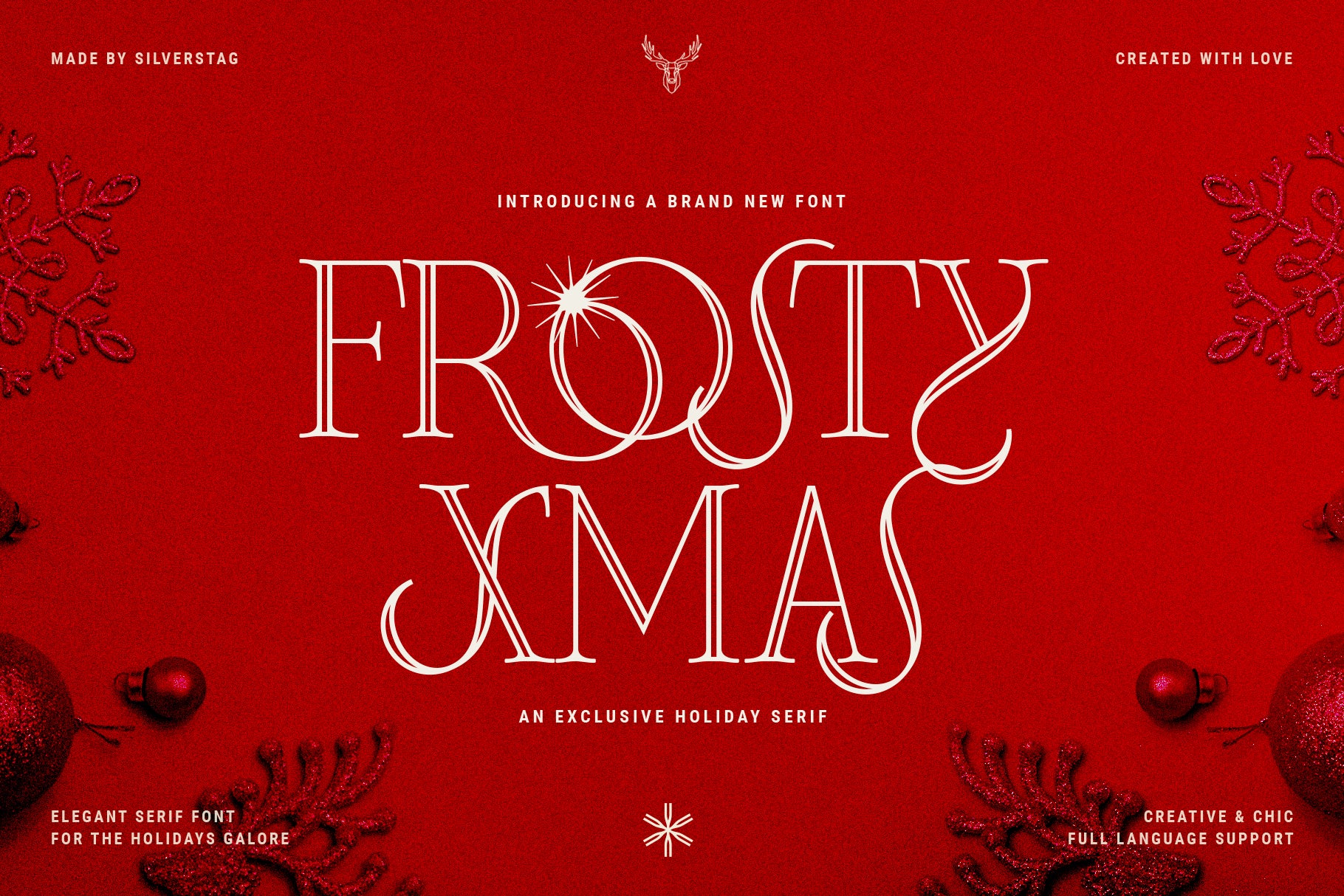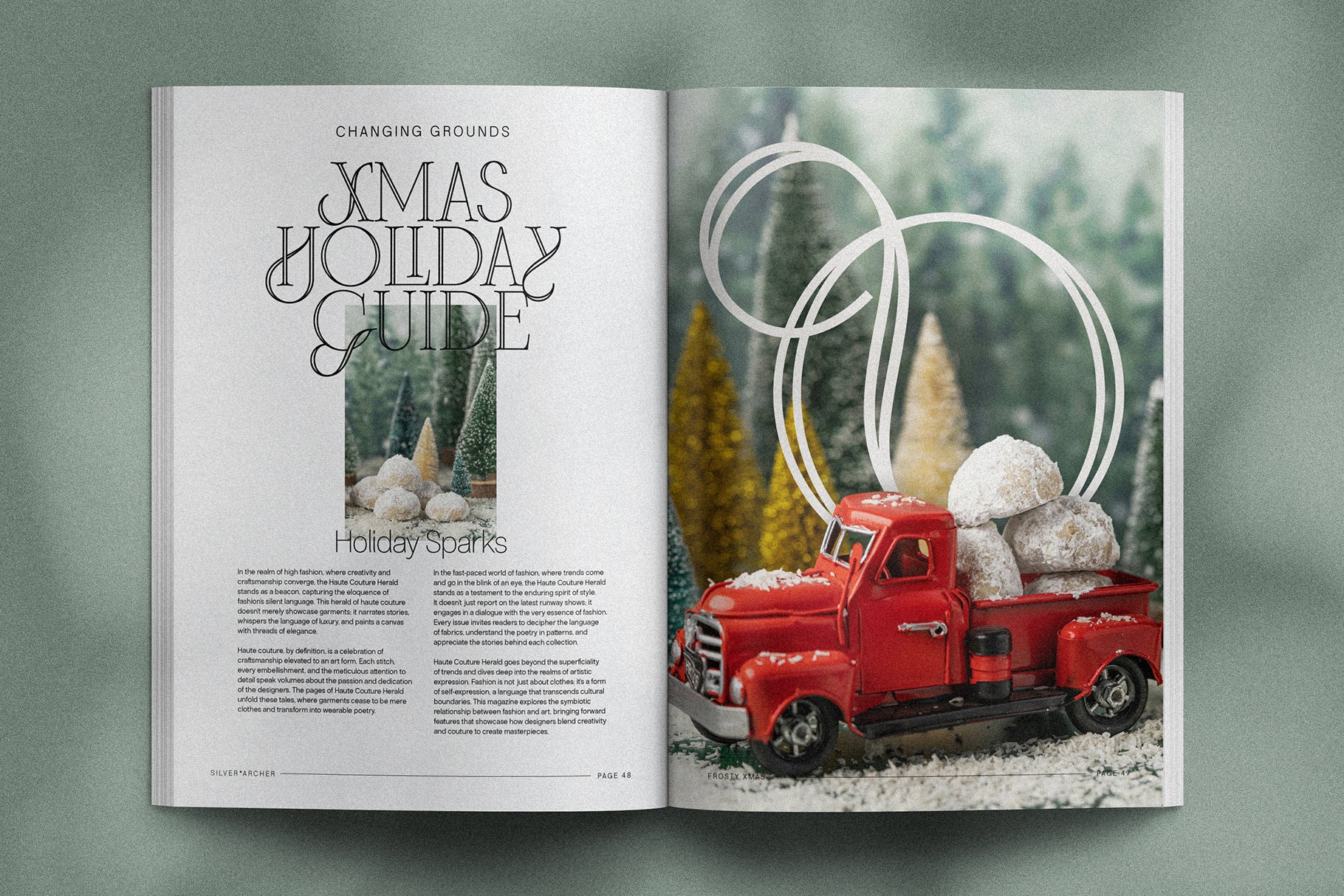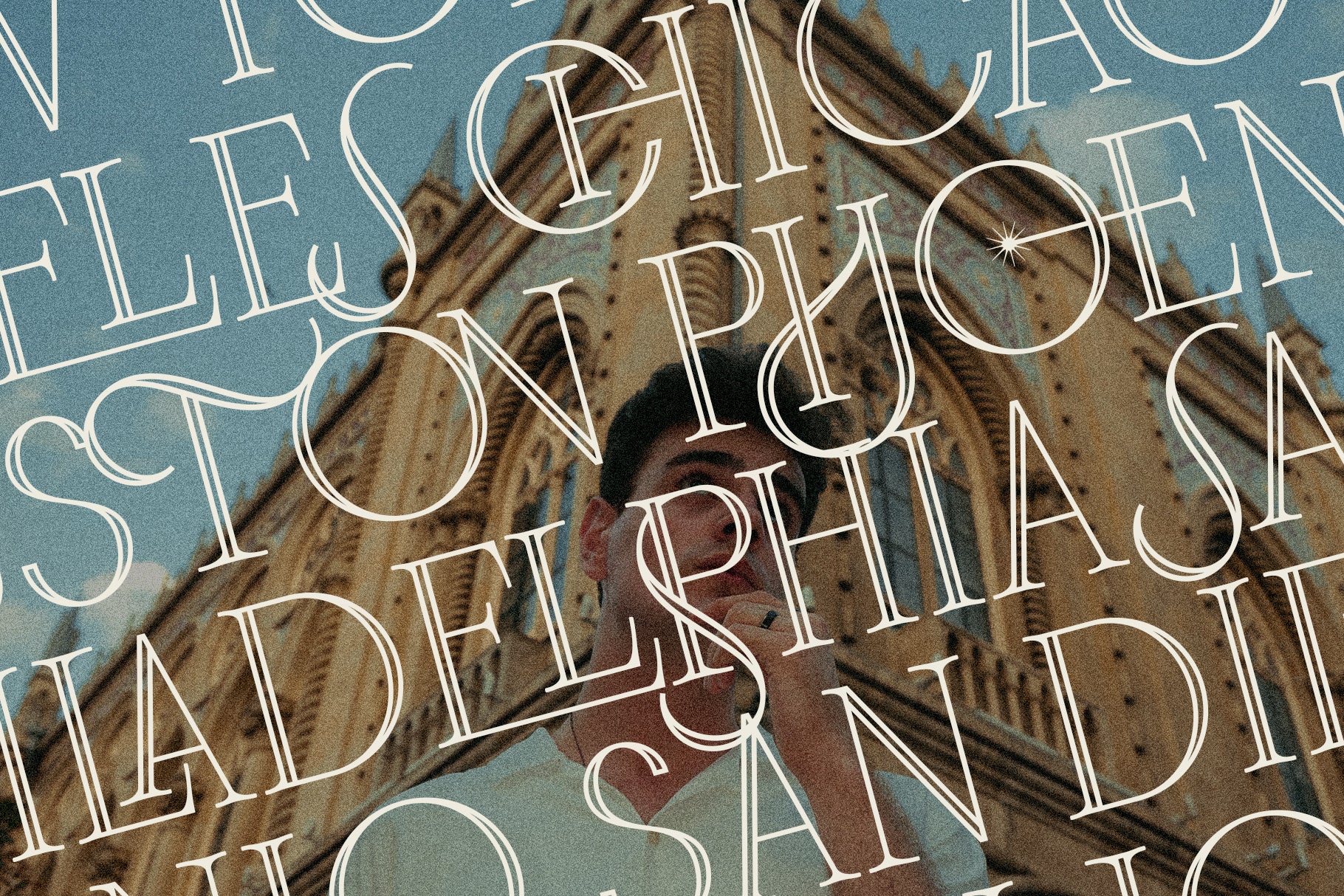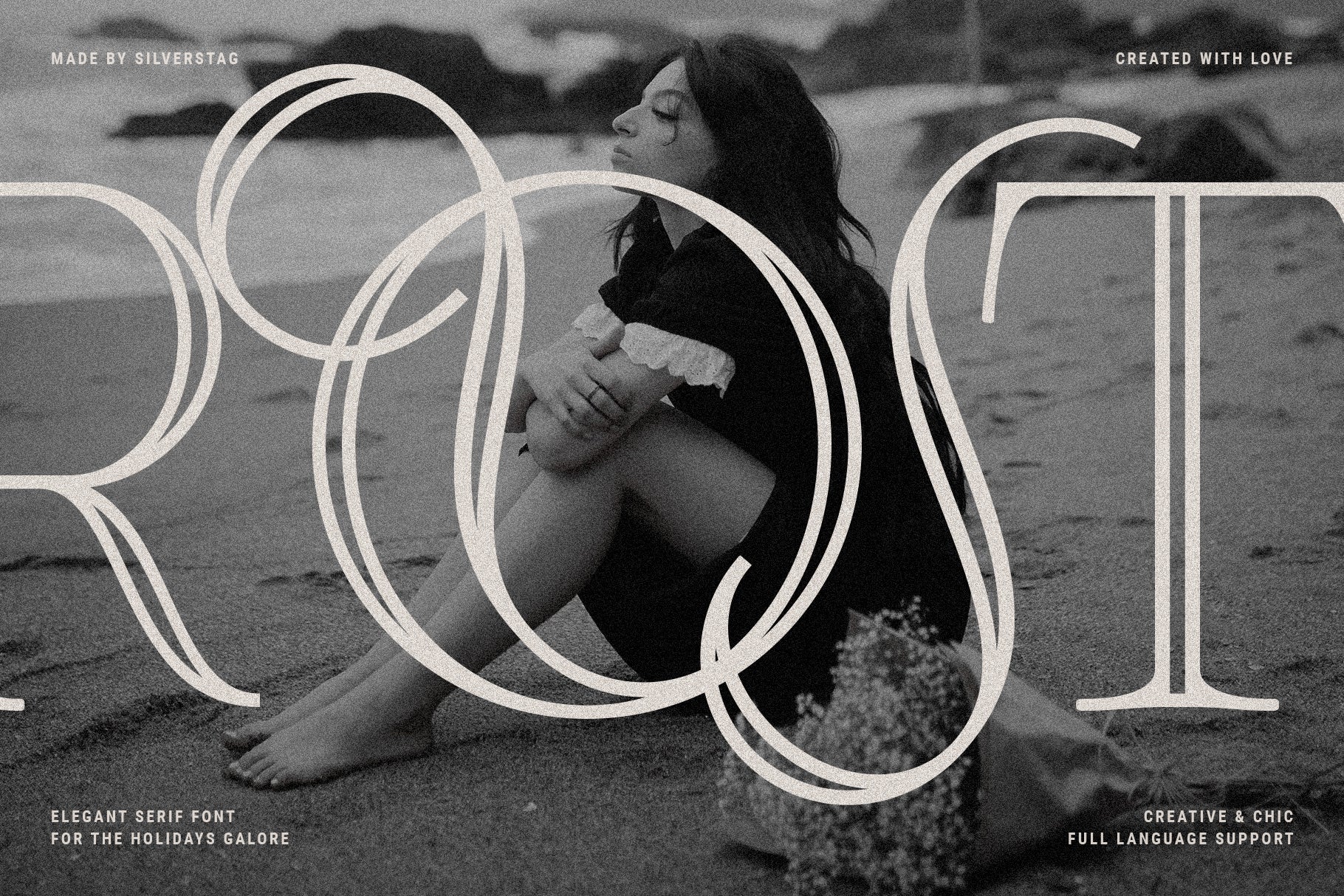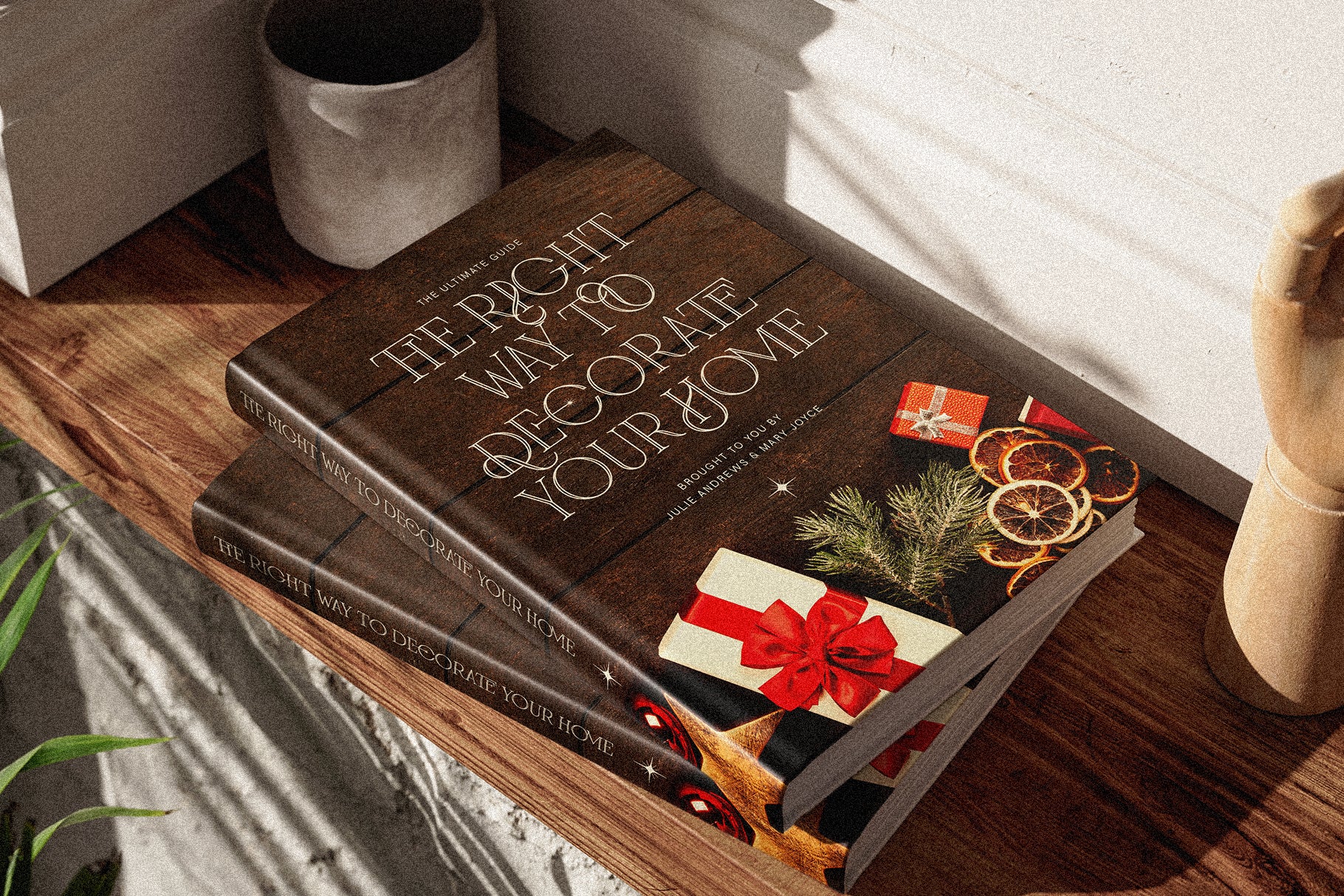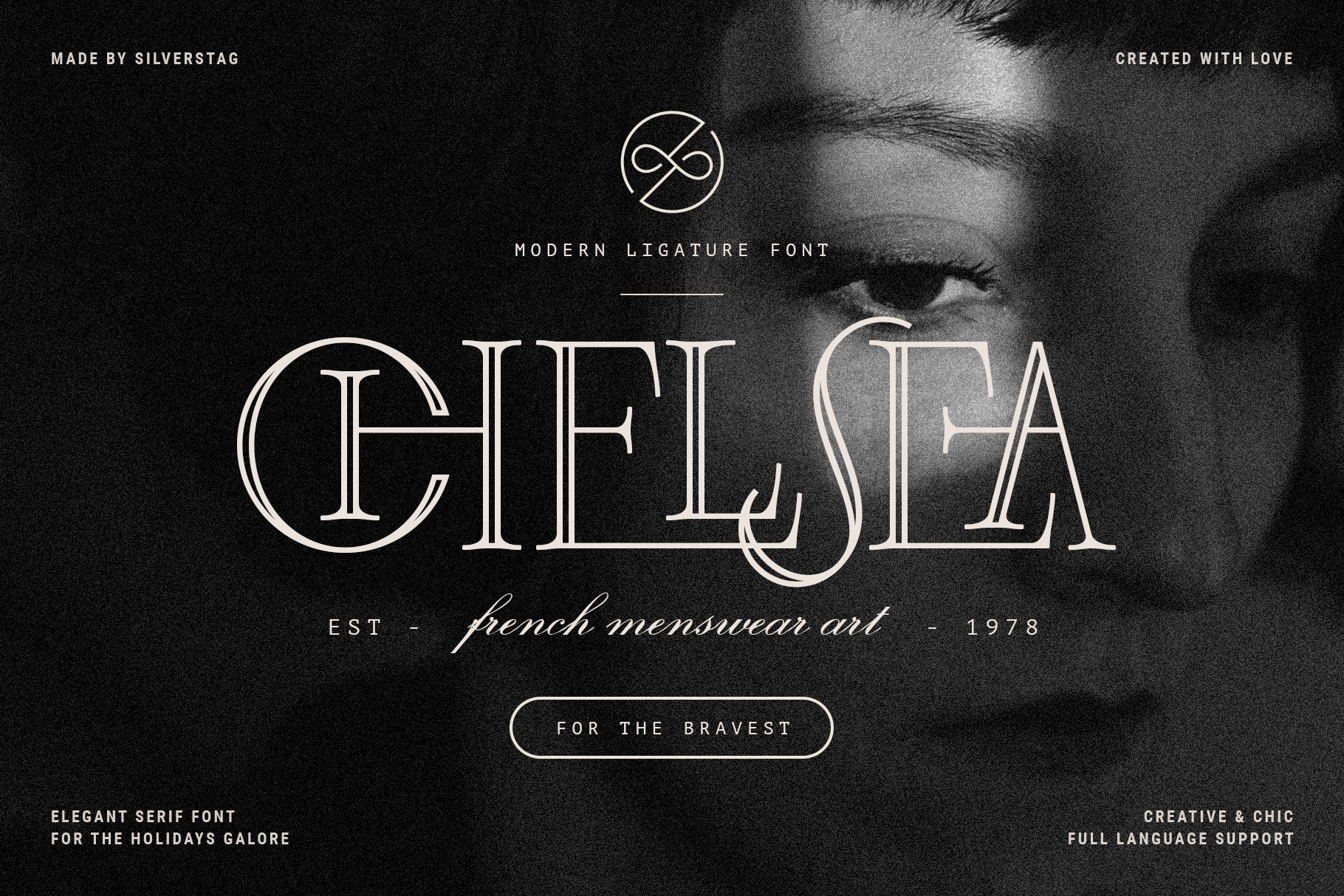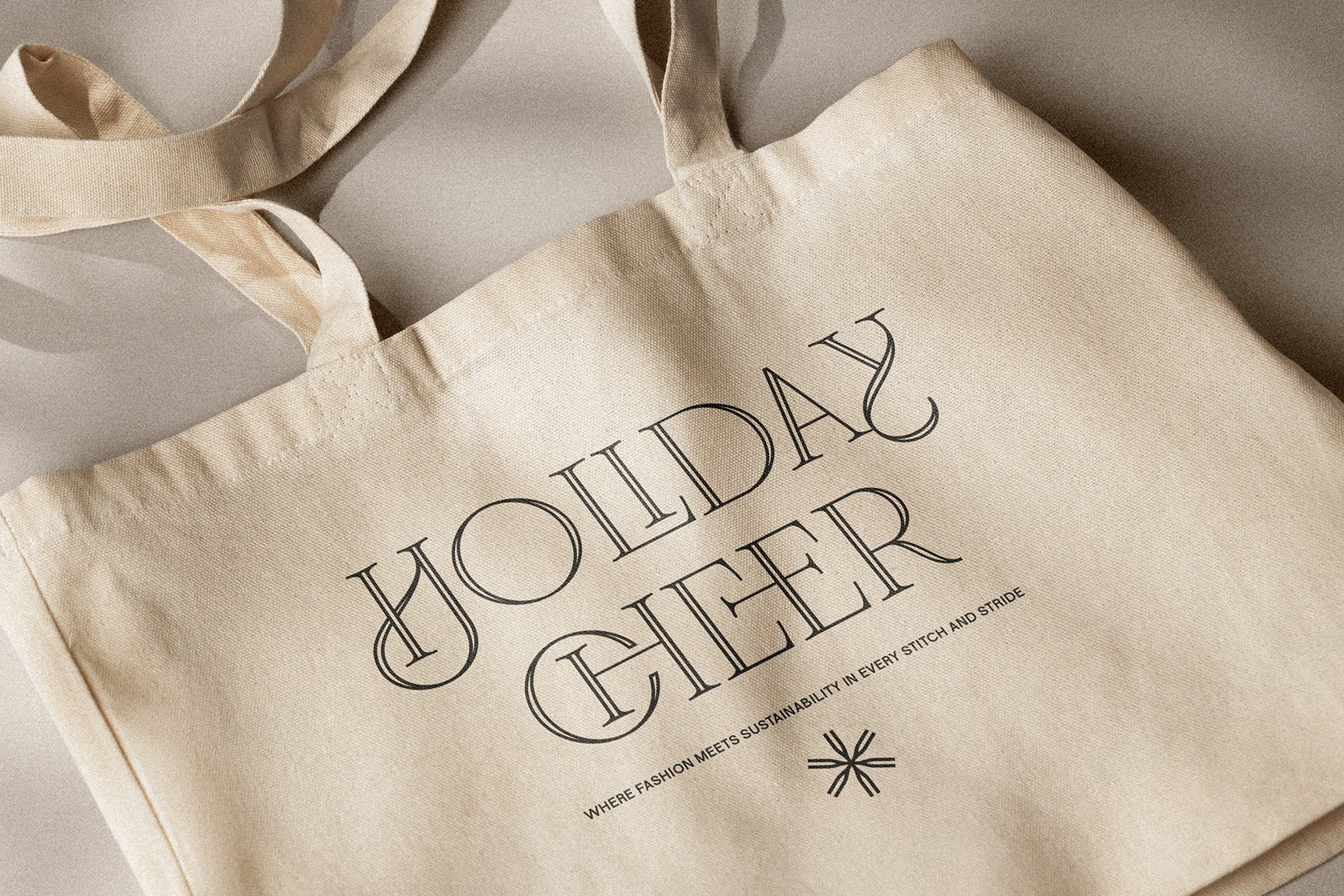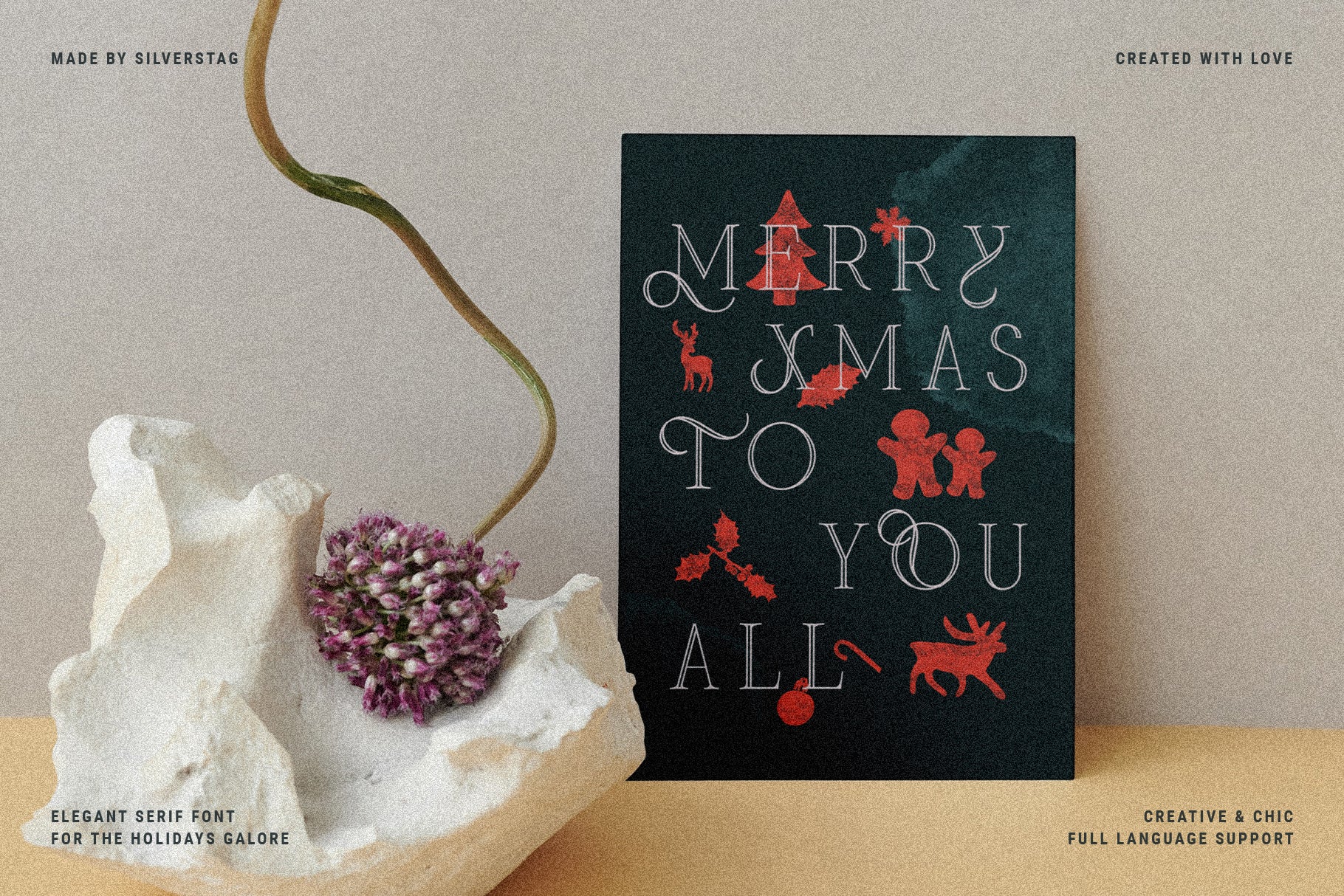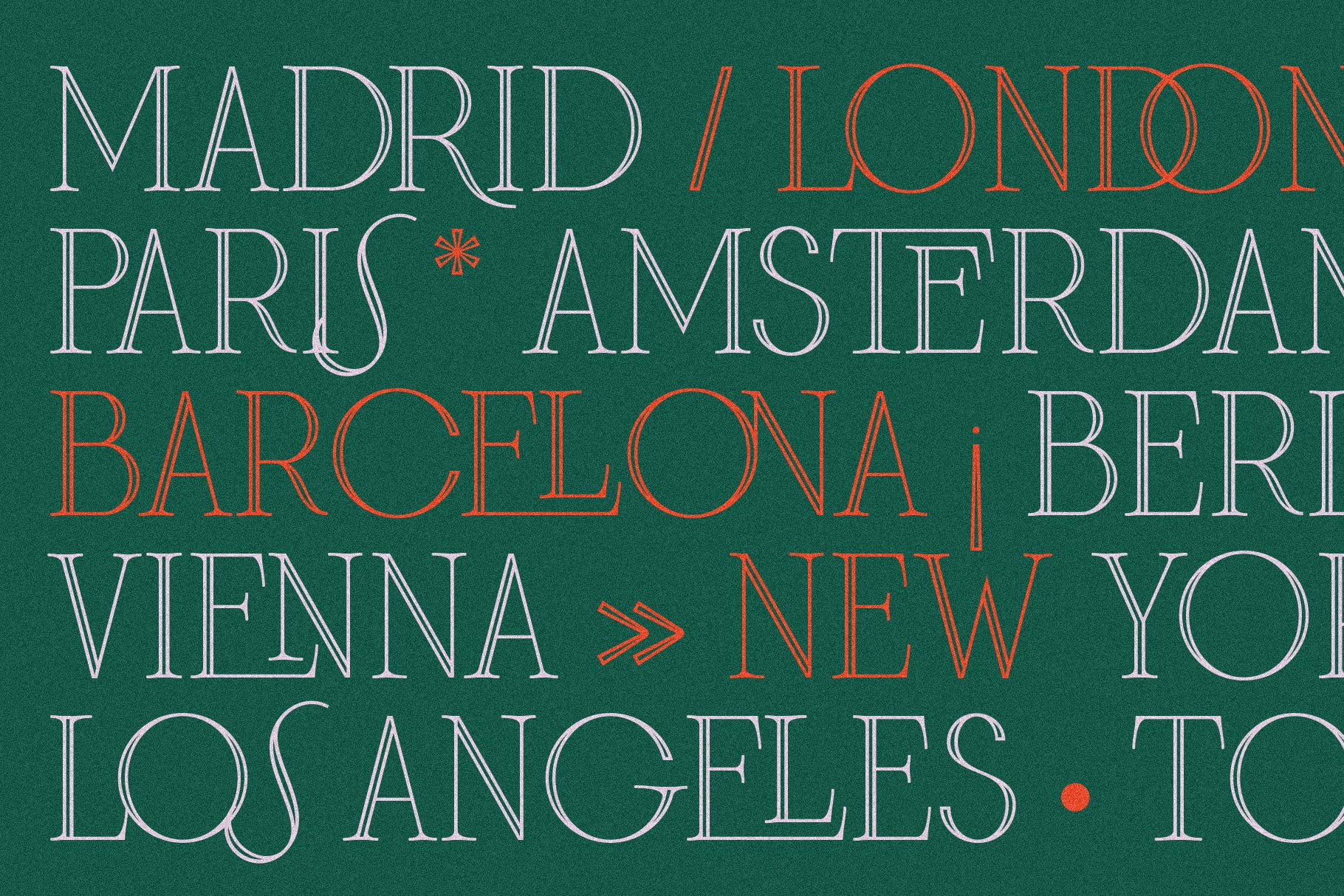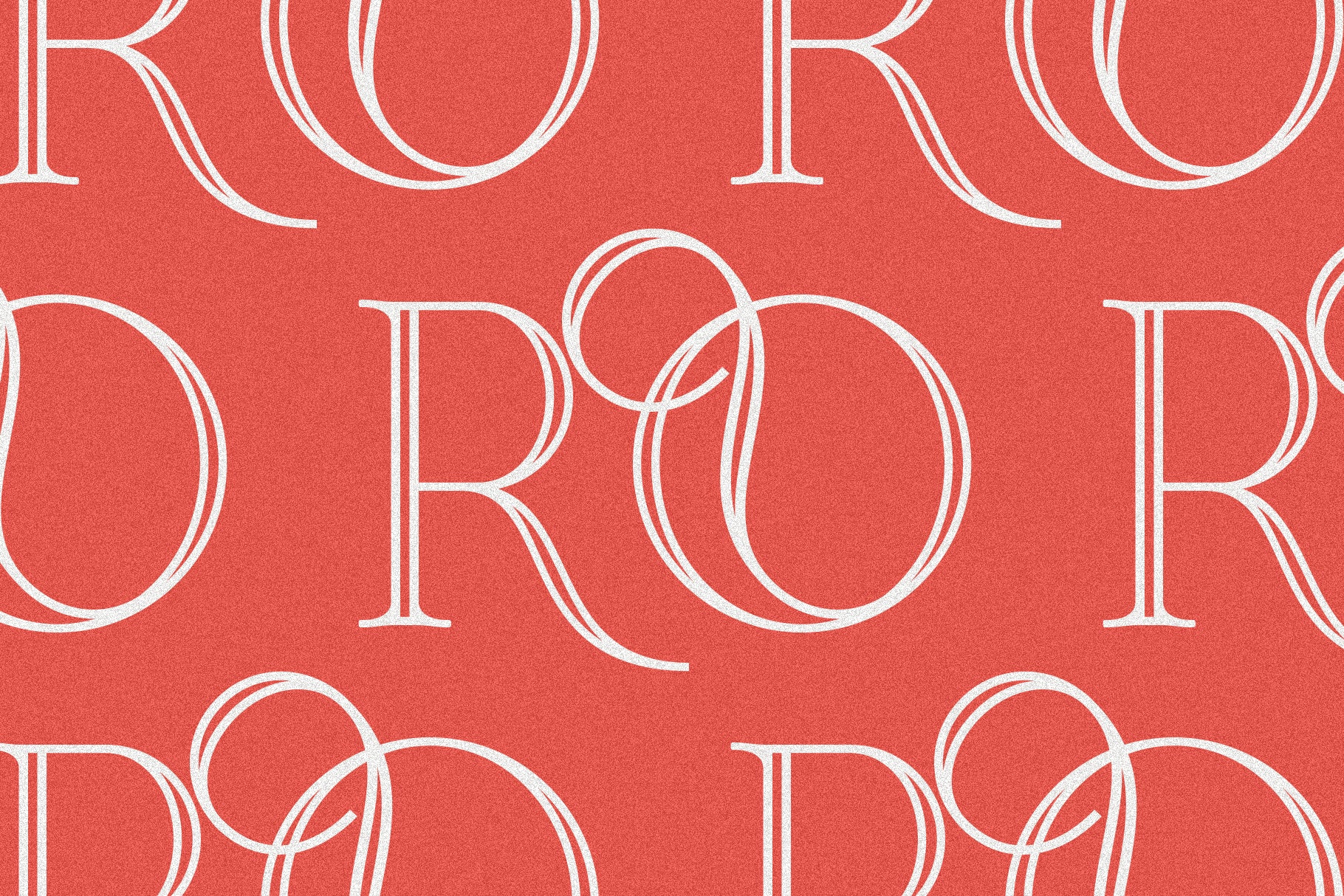
SLTF Frosty Xmas is an elegant all-caps serif font designed to bring festive charm, magic, and a touch of whimsy to your holiday designs. Featuring classic letterforms with soft curves, delicate swashes, and seasonal star accents, this font captures the joyful spirit of the season with sophistication and warmth.
Crafted specifically for Christmas and winter-themed projects, Frosty Xmas is ideal for holiday cards, gift packaging, branding, social media graphics, and creative displays. Its timeless serif style is versatile enough to work beyond the holidays too—making it a perfect choice for festive branding and year-end campaigns.
Included with the font are 40 hand-drawn holiday doodles—featuring snowflakes, ornaments, stockings, candy canes, and more—ready to add a playful and decorative touch to your projects.
With over 450 glyphs and support for 90+ languages, Frosty Xmas is built for global creatives and festive designs that shine across cultures and formats.